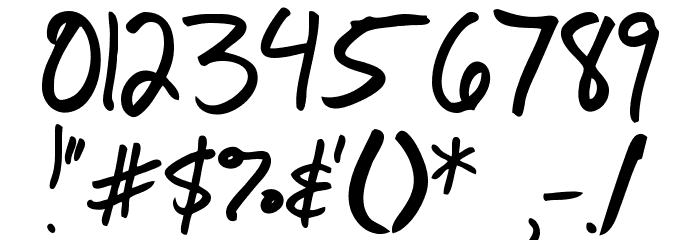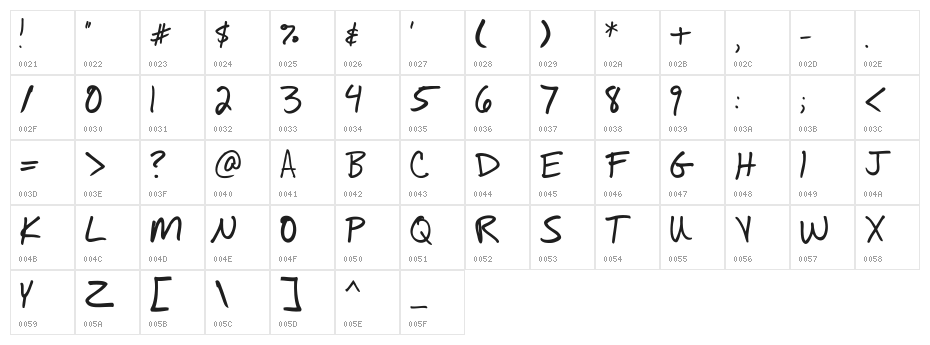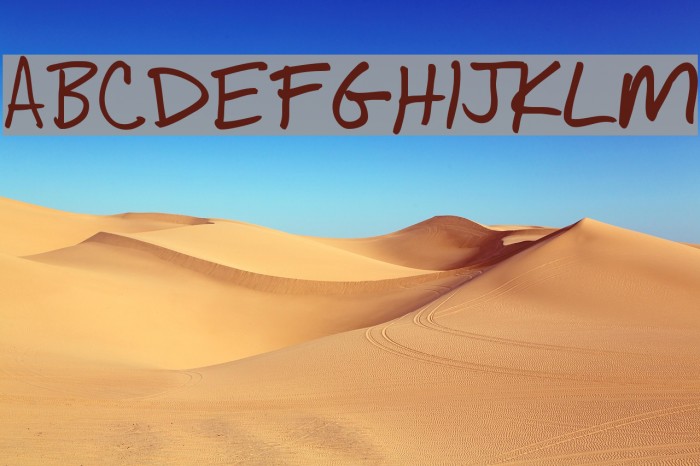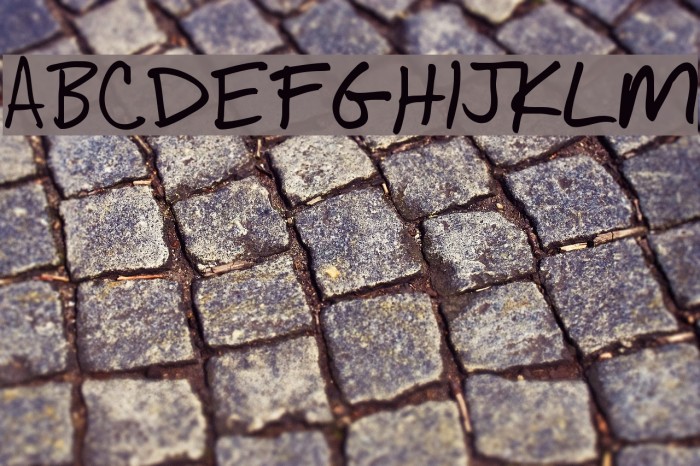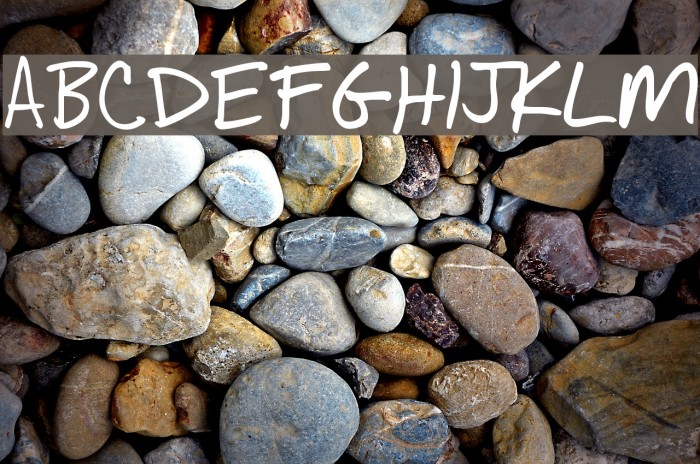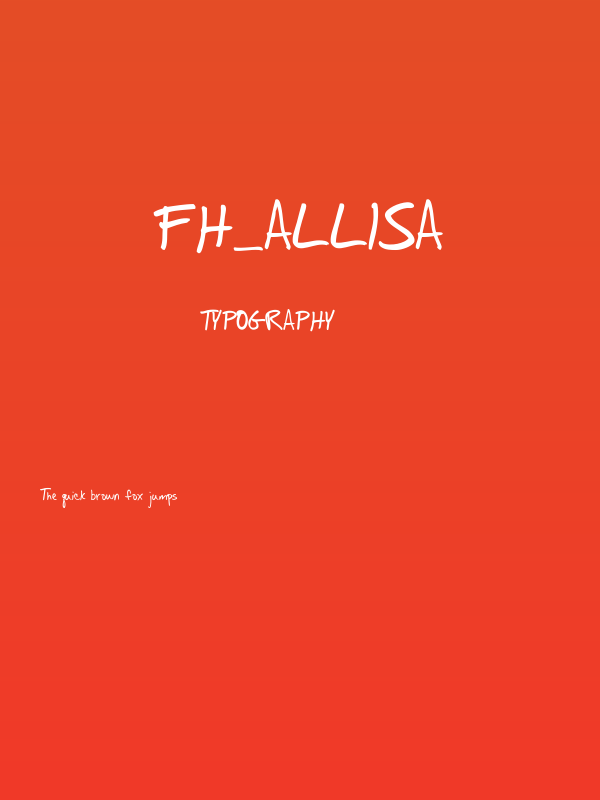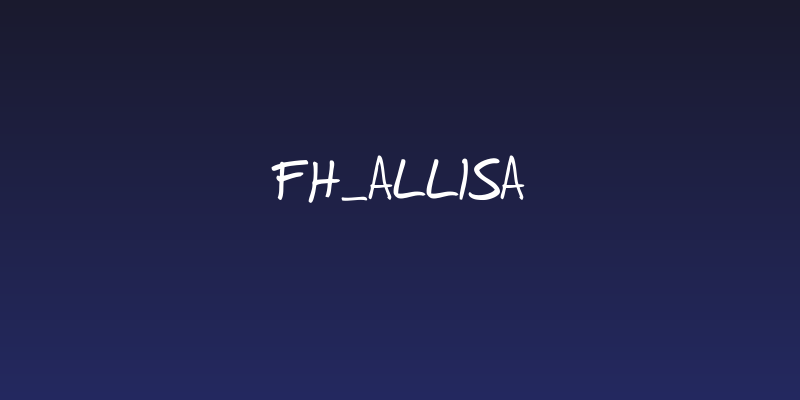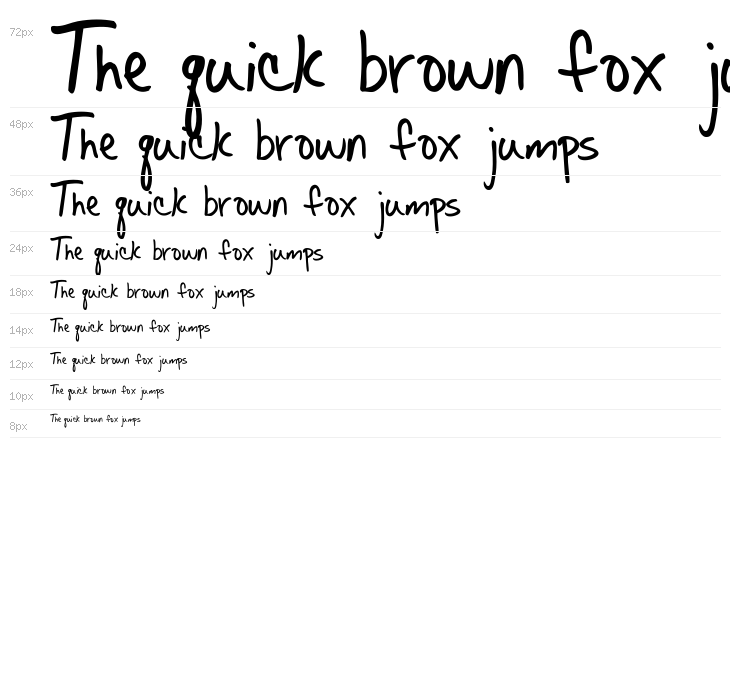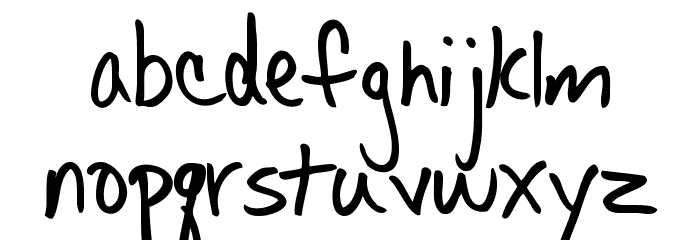
Fh_Allisa Font
Fh_Allisa Description
This font exudes a playful and informal style, characterized by its handwritten appearance. The letters are slightly irregular, giving it a casual and approachable feel. The strokes are smooth and flowing, with a consistent medium thickness that maintains readability while adding a touch of whimsy. The uppercase and lowercase letters are well-balanced, with the lowercase letters featuring a slight slant that enhances the handwritten effect. The numerals and special characters maintain the same playful style, ensuring a cohesive look across all text elements. This font is perfect for projects that require a personal touch, such as greeting cards, invitations, or children's book illustrations.